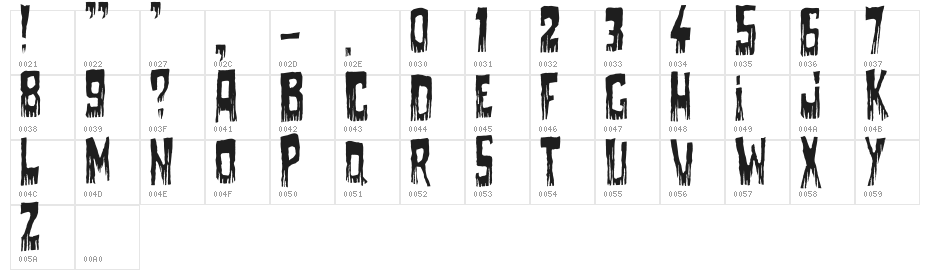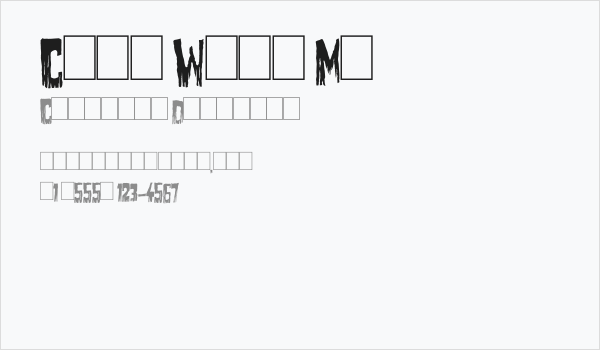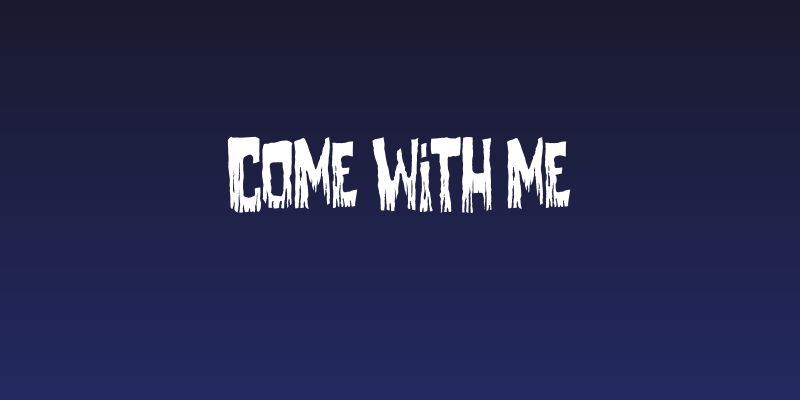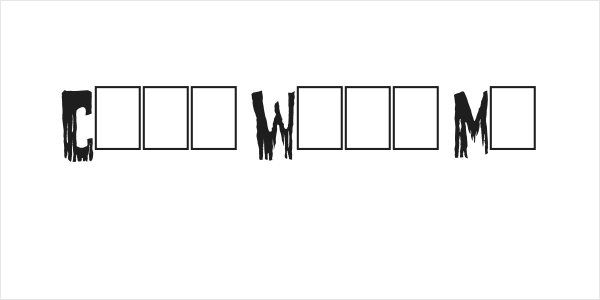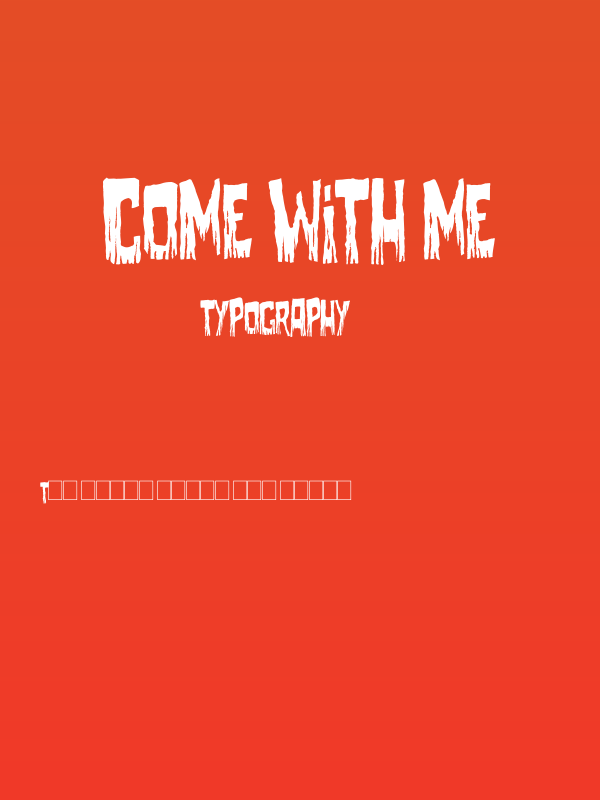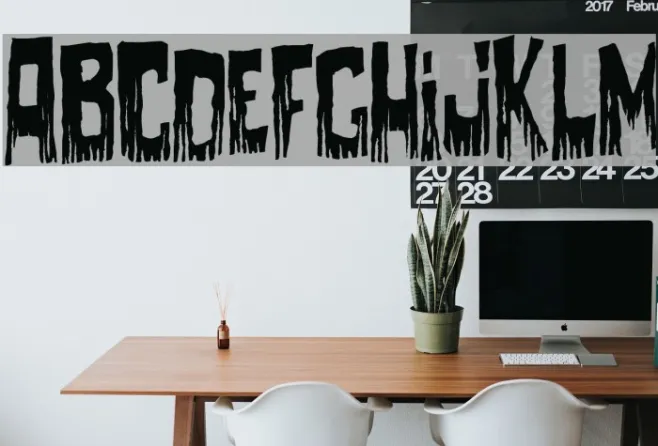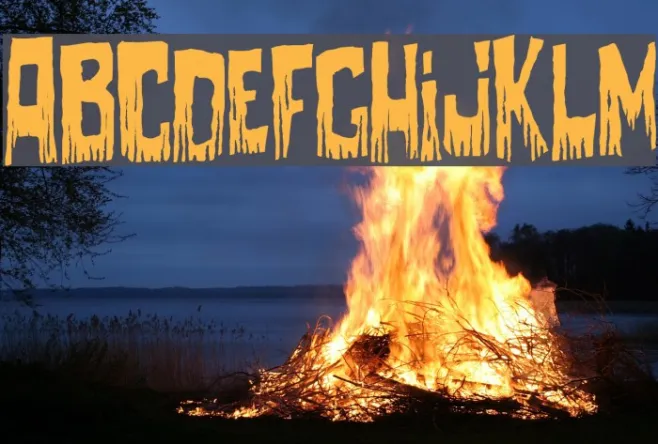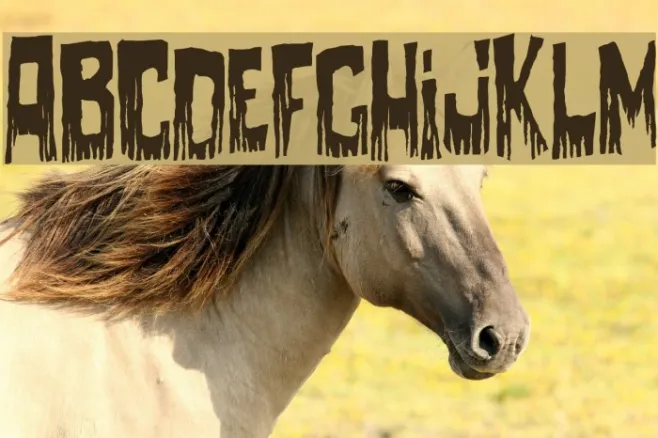
Come With Me Font
Come With Me Description
This font features a dramatic and eerie design, with letters that appear to be dripping or melting, creating a haunting visual effect. The uppercase and lowercase letters maintain a consistent style, with elongated vertical strokes and irregular edges that enhance the unsettling aesthetic. Numbers and special characters follow the same theme, ensuring a cohesive look across all text elements. The font's unique appearance makes it ideal for projects that require a spooky or horror-themed atmosphere, such as Halloween promotions, movie posters, or themed event invitations.
| Proposed Projects | Ideal for Halloween promotions, horror movie posters, themed event invitations, and spooky graphic designs. |